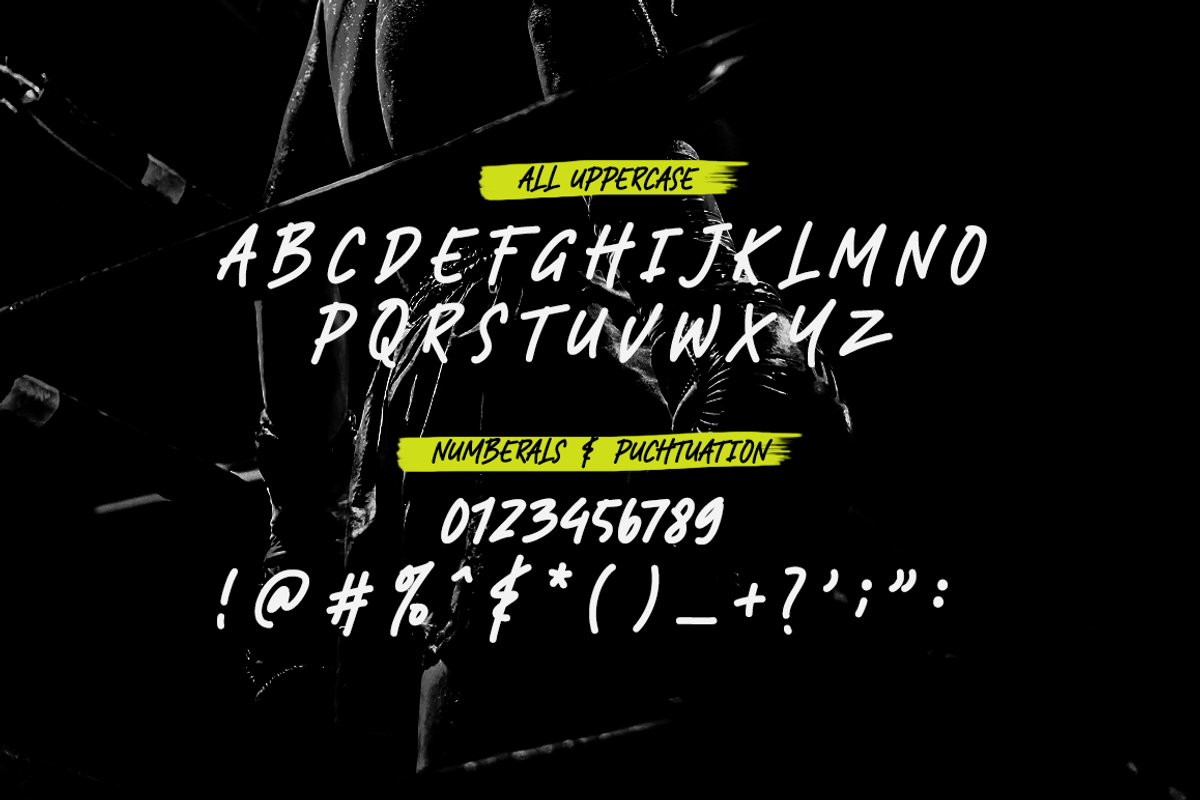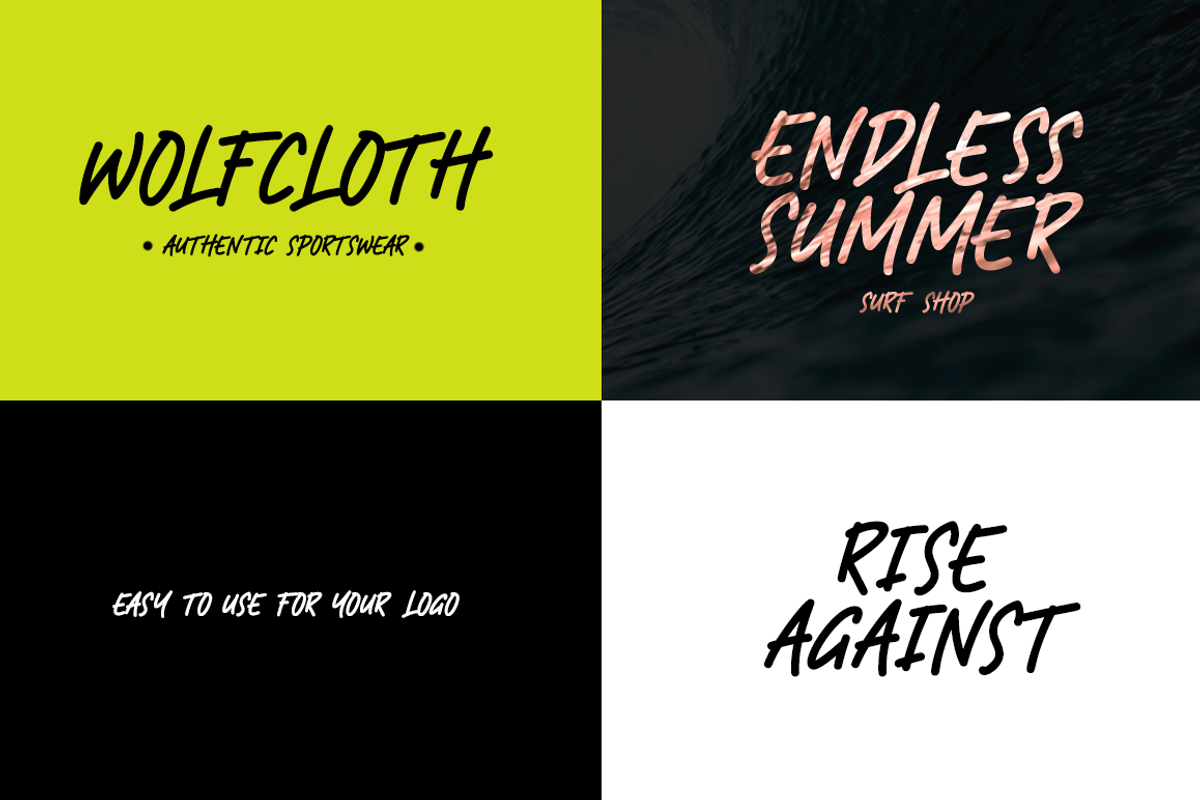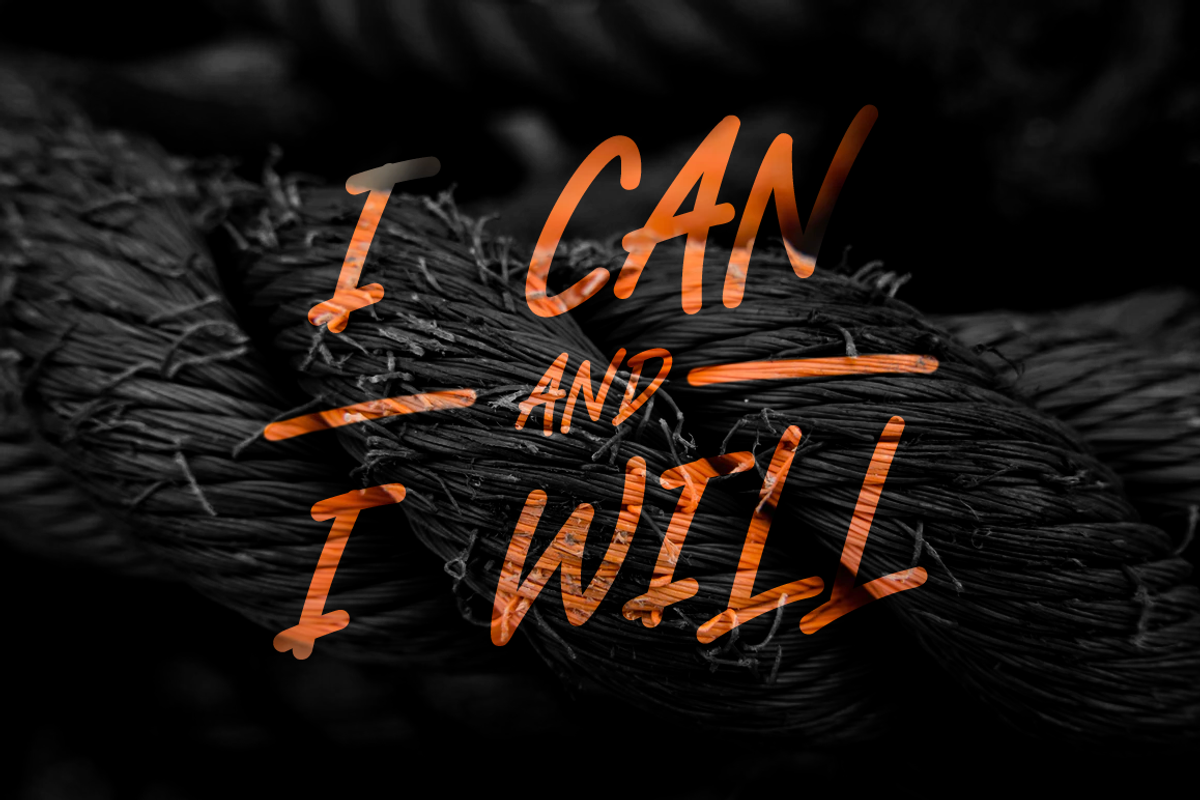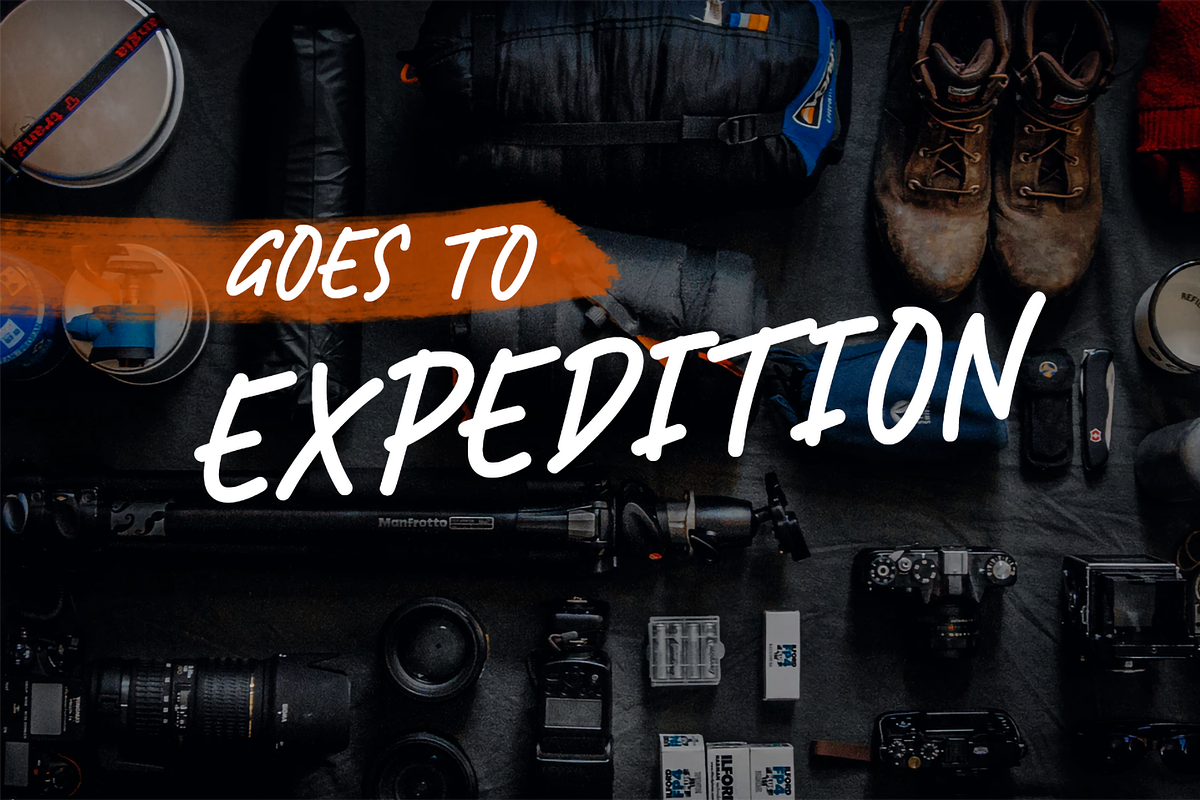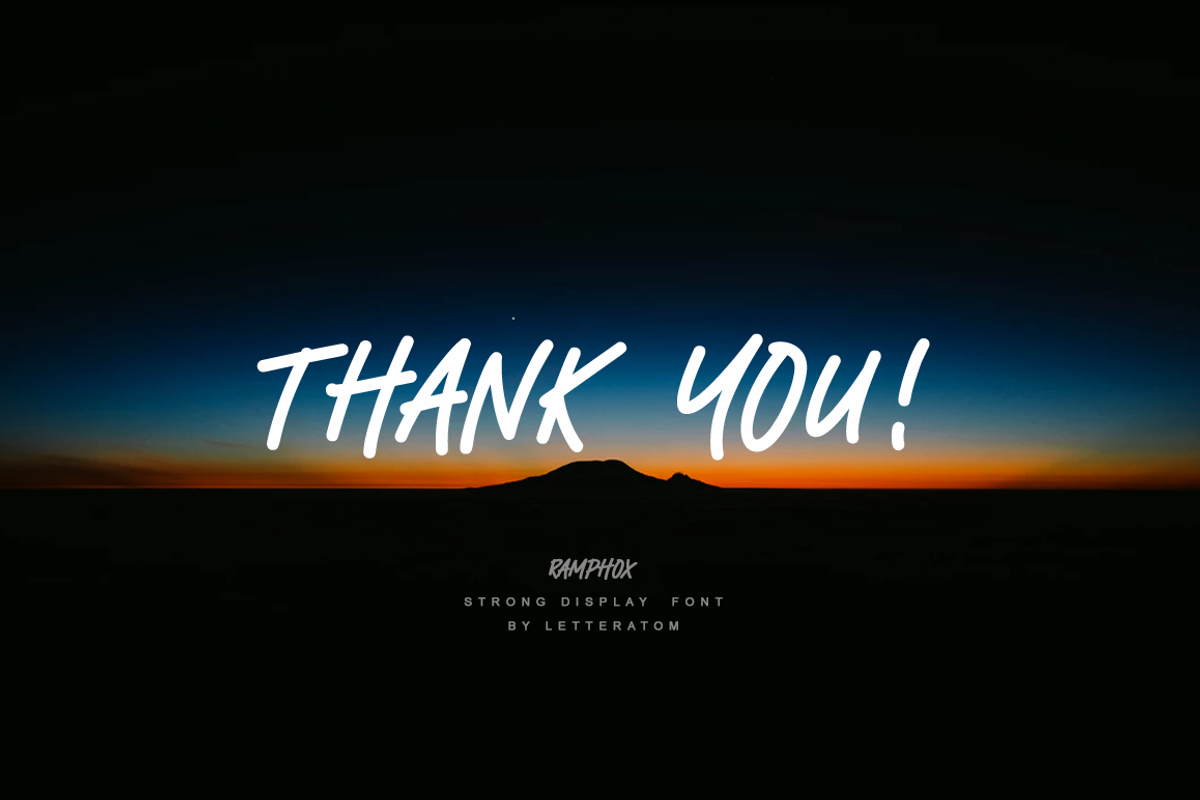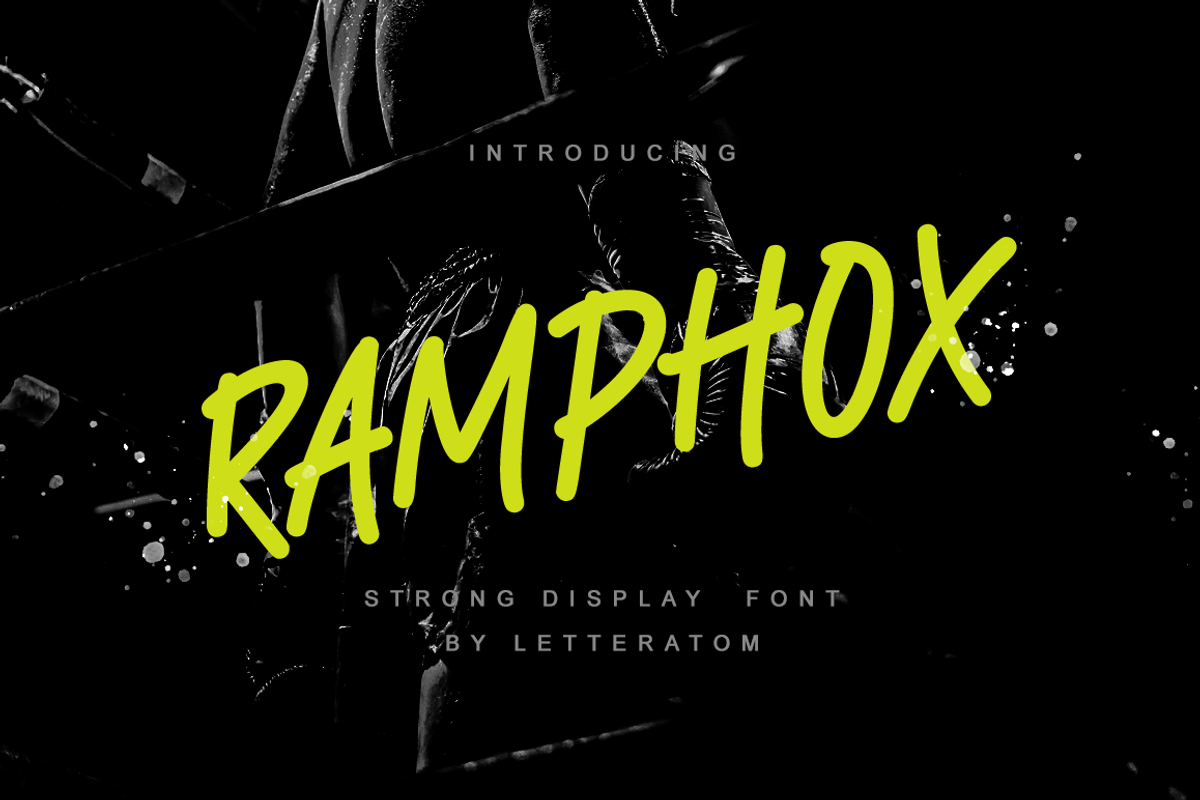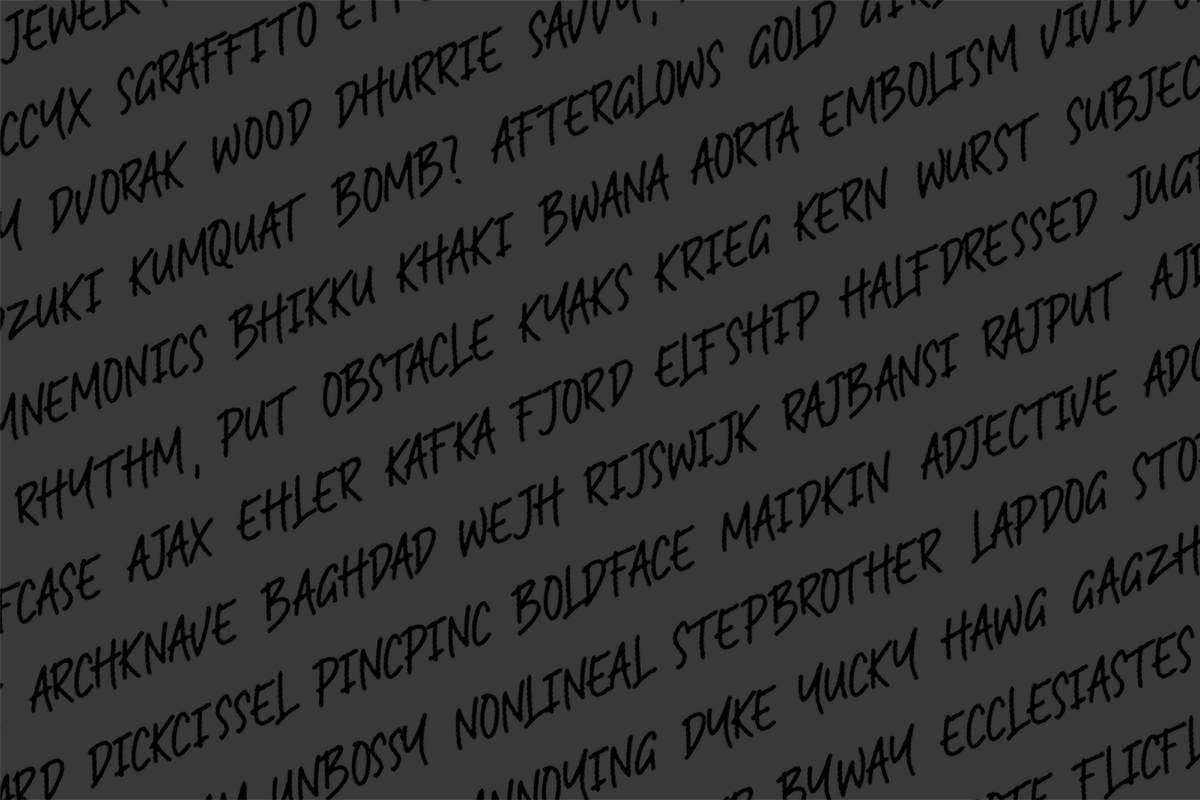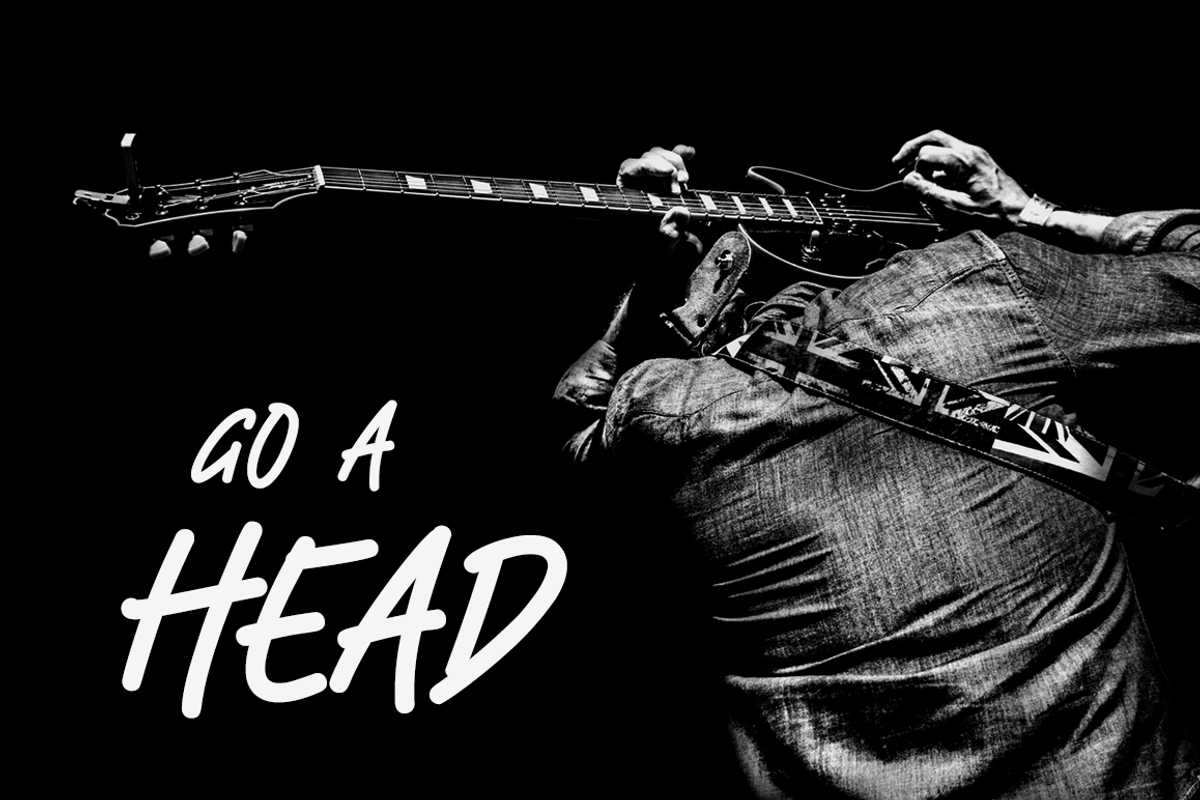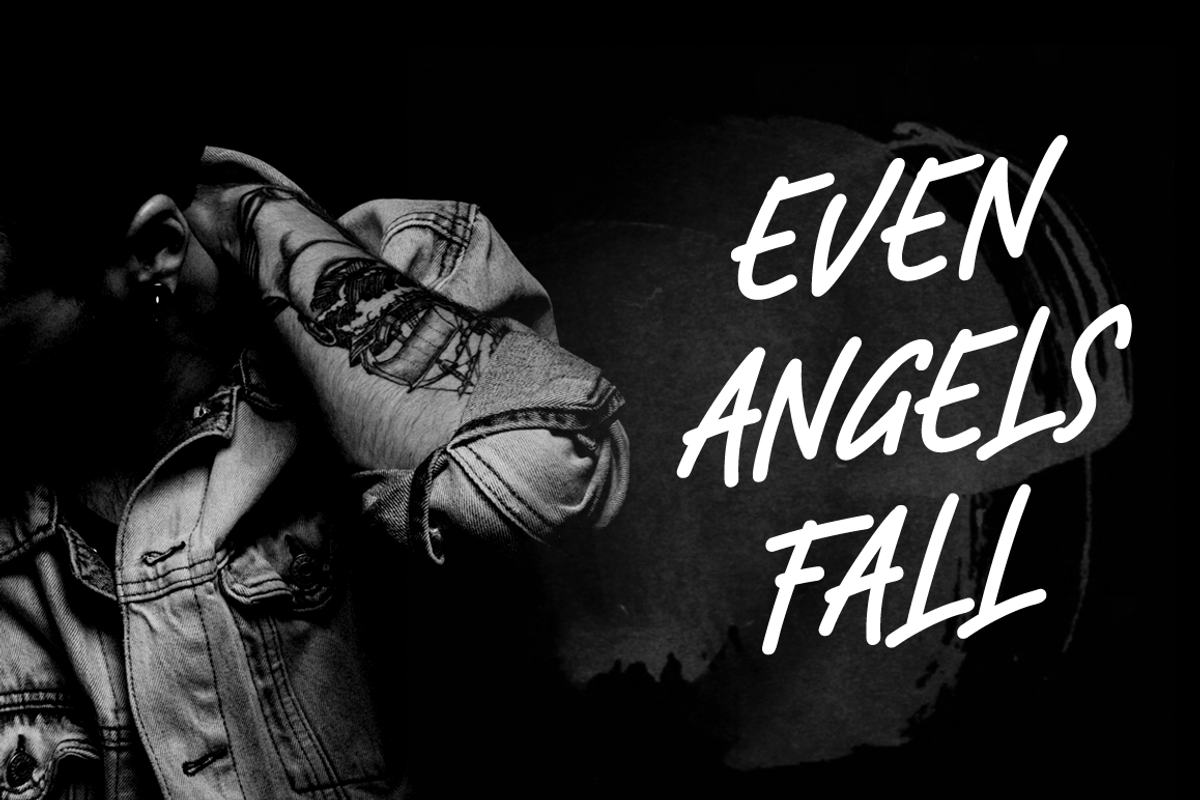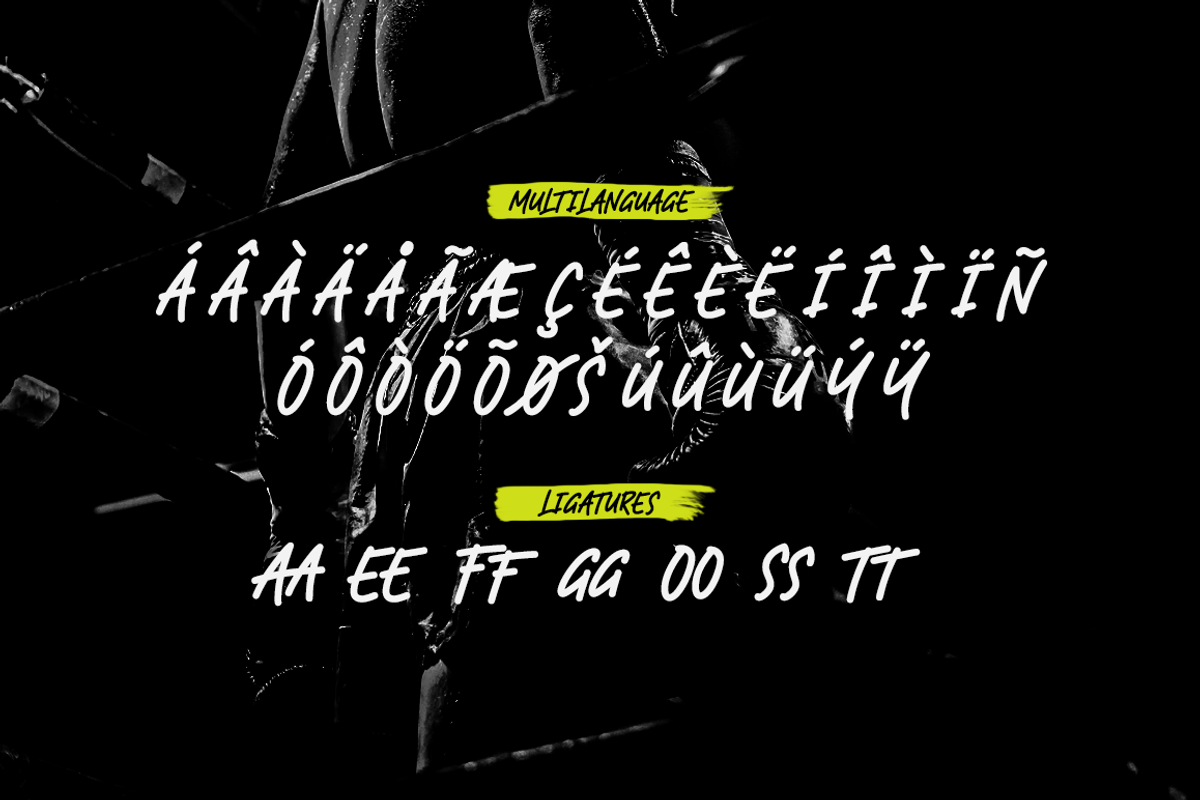
Ramphox - All Caps
RAMPHOX strong display font. With extra attention to fast and straightforward streaks, RAMPHOX is guaranteed to deliver hard and fast messages for logos, clothing, quotes, product packaging, or anything that requires a turbo typographic boost.
Font features:
- Full uppercase characters, numeric and punctuation
- 200 plus glyph
- Assorted little catchwords in English, Spanish, French, German, and Portuguese
- Multi language ÁÂÀÄÅÃÆÇÉÊÈËÍÎÌÏÑÓÔÒÖÕØŒŠÚÛÙÜÝŸ